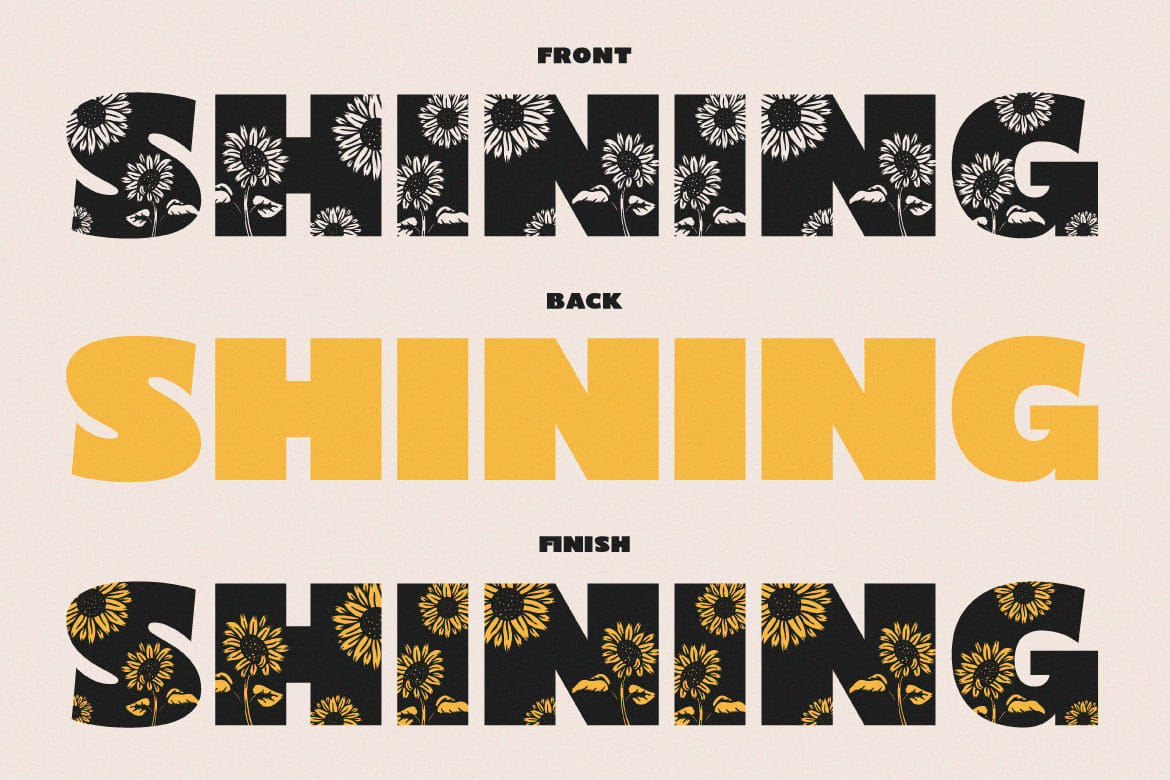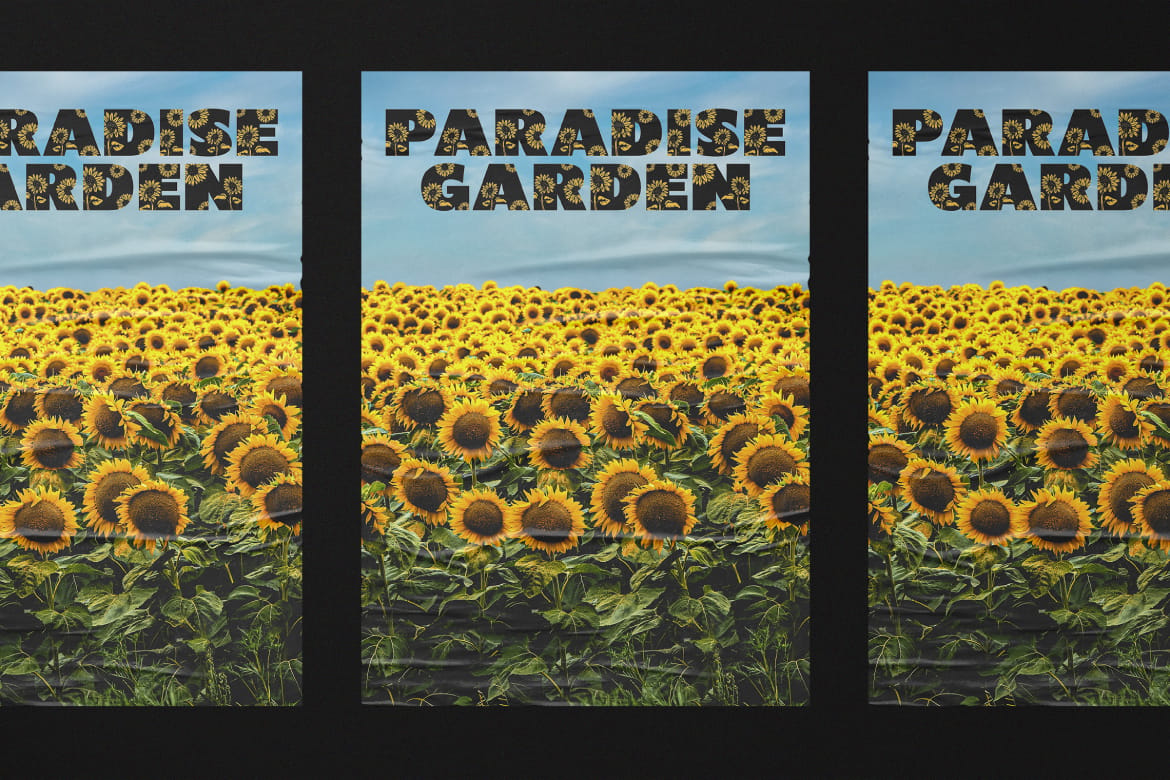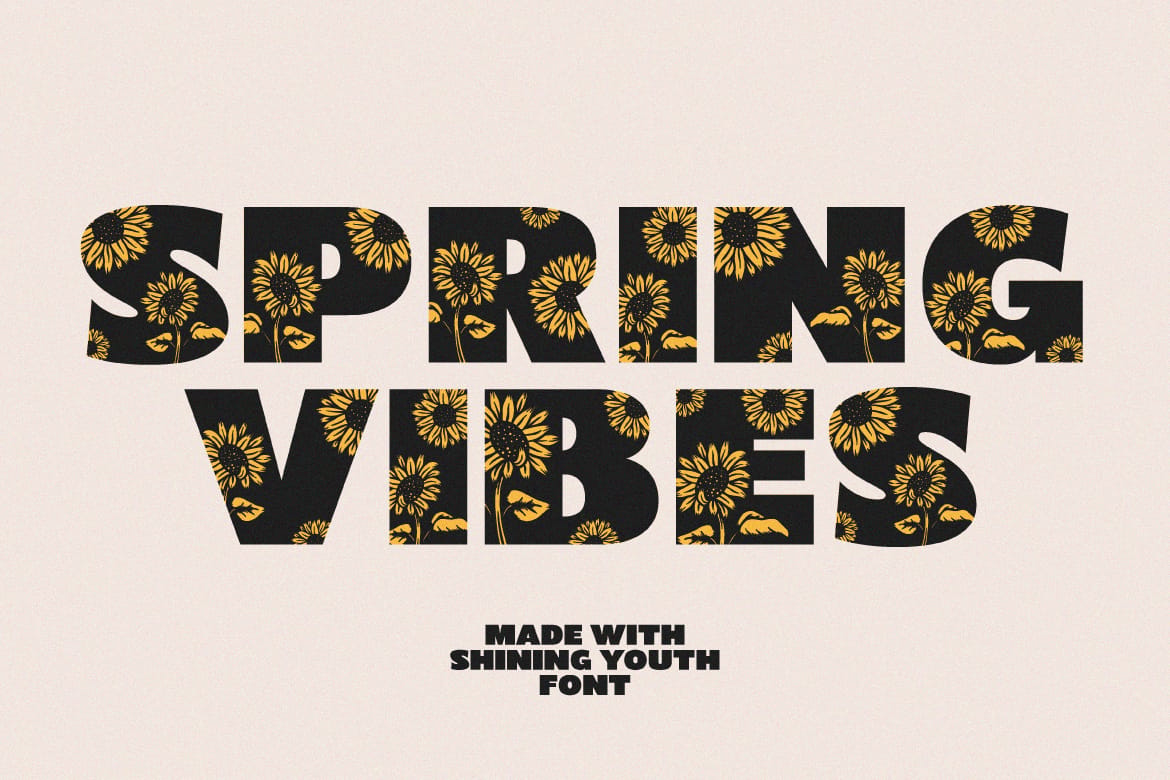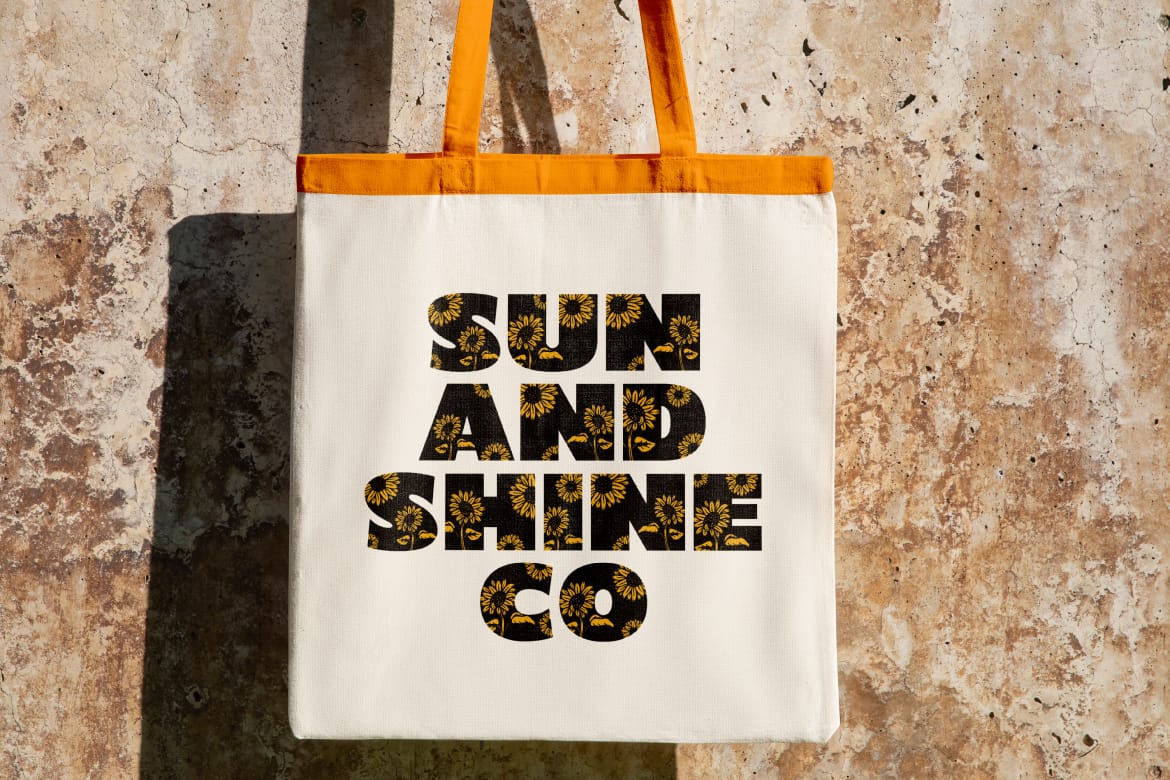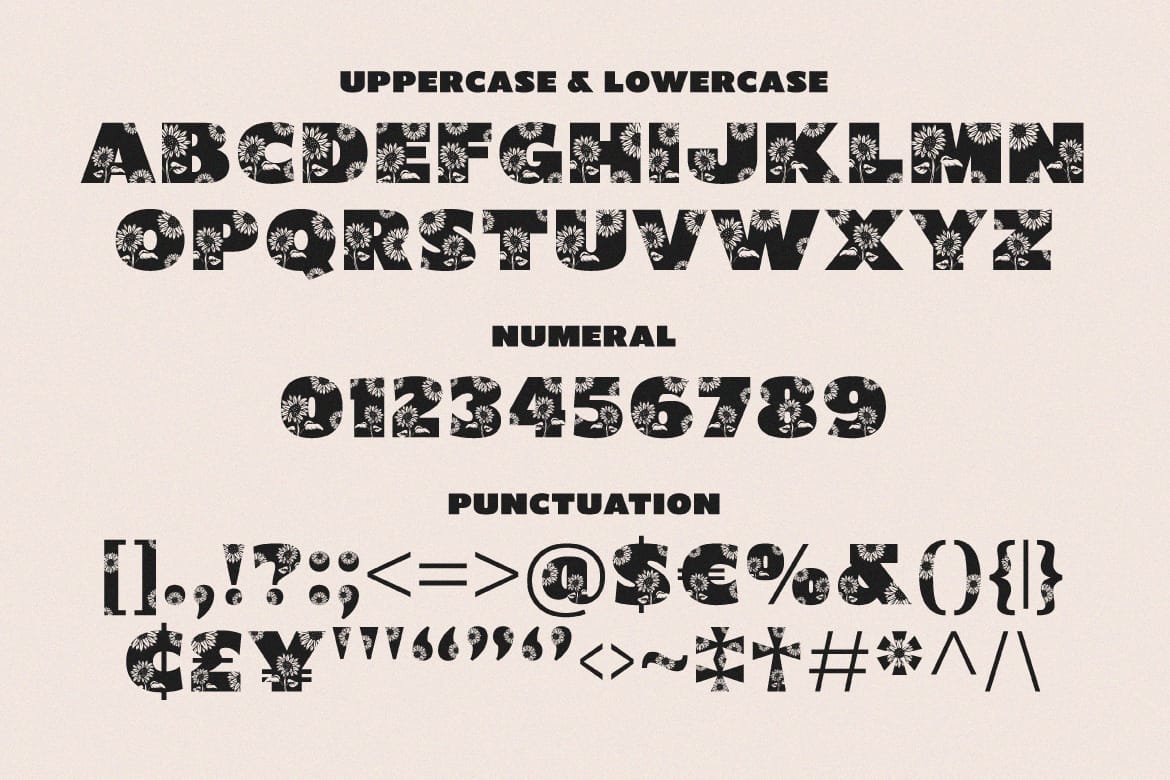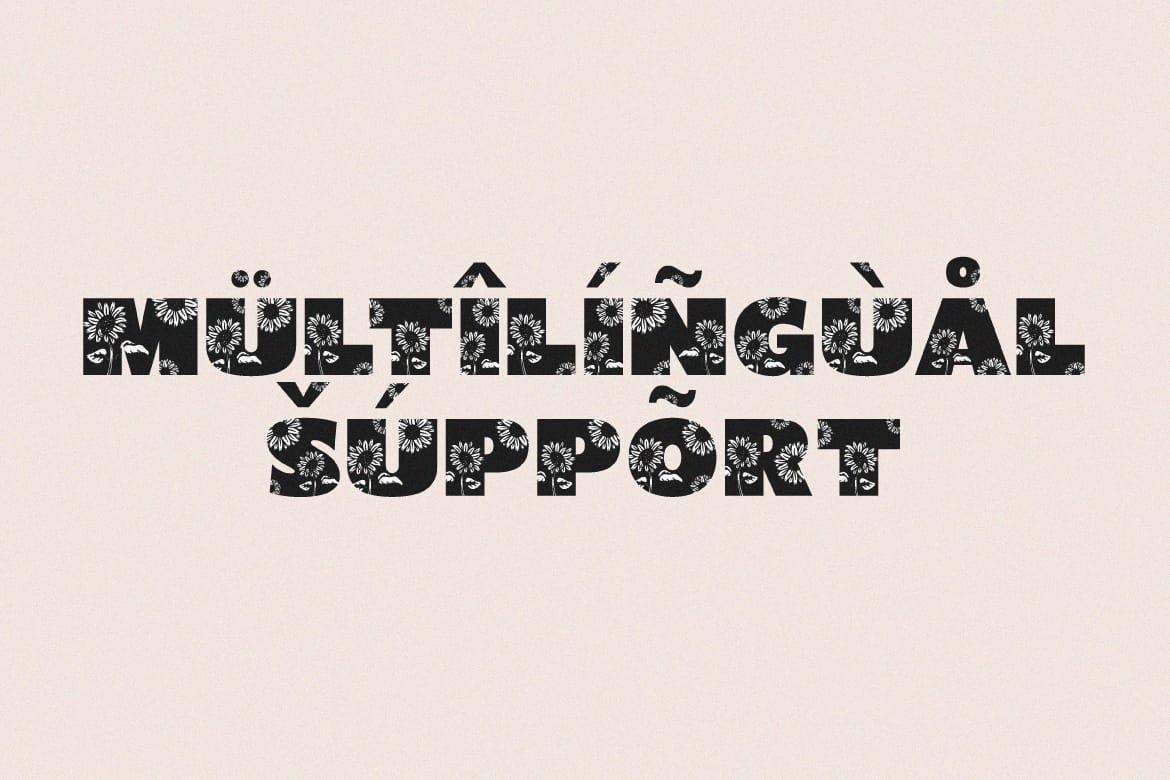
Shining Youth – Display Font by Prioritype Co.
"Shining Youth" is a bold typeface combined with a hand-drawn sunflower graphic. With two styles, namely Regular and Clean to make it easier for you to change colors to make it look more alive. Great for design projects such as posters or merchandise.
Features: Uppercase, Lowercase, Numeral, Punctuation & Multilingual.
- Bold display with sunflower graphics
- Regular and Clean style variants